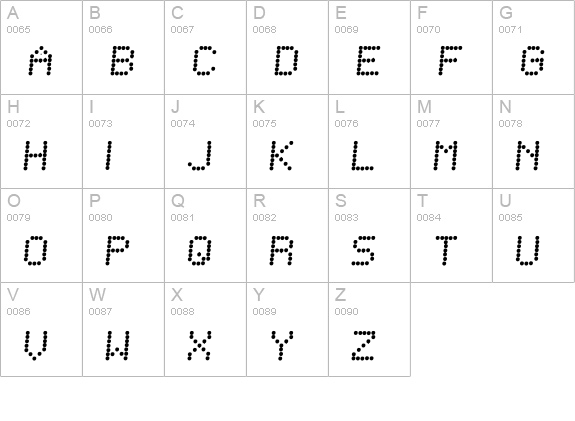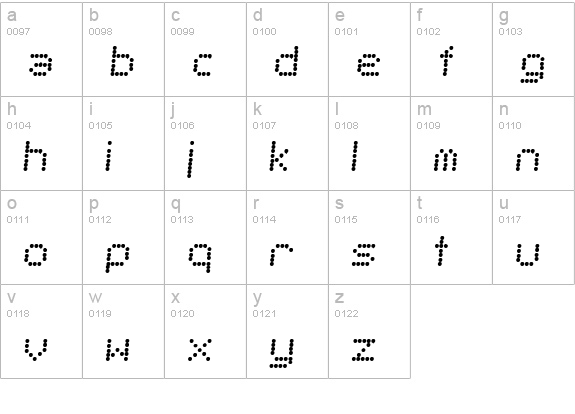
Telegraphic Italic is a distinctive, italic variant in the Telegraphic typeface family \xE2\x80\x94 well suited to design and typography projects.
Telegraphic Italic font is a stunning display font that exudes elegance and sophistication. Its sleek and stylish design is perfect for adding a touch of class to any project. The italicized slant of the letters adds a dynamic and modern twist to the traditional telegraph font style. The Telegraphic Italic font is versatile and can be used for a wide range of design purposes, whether it's creating eye-catching logos, designing striking headlines, or adding a touch of sophistication to your social media posts. Its unique and distinctive letterforms make it stand out from the crowd and grab the attention of viewers. One of the best things about the Telegraphic Italic font is that it is free! That's right, you can download this incredible font without spending a dime. Simply visit FontsMarket.com and easily access the font to elevate your designs to new heights. The free availability of this font makes it a must-have for designers, marketers, and creatives looking to add a touch of elegance to their projects. With its freely available download, the Telegraphic Italic font gives you the opportunity to explore your creativity without any limitations. Its clean and crisp lines ensure readability, while its italicized style adds a touch of flair and sophistication. Whether you're designing for print or digital media, this font is sure to make a lasting impression. So why wait? Take advantage of the free download offer and add the Telegraphic Italic font to your font library today. Let your creativity soar and create designs that are both visually stunning and impactful. Download the Telegraphic Italic font now at FontsMarket.com and experience the beauty and versatility of this incredible font.